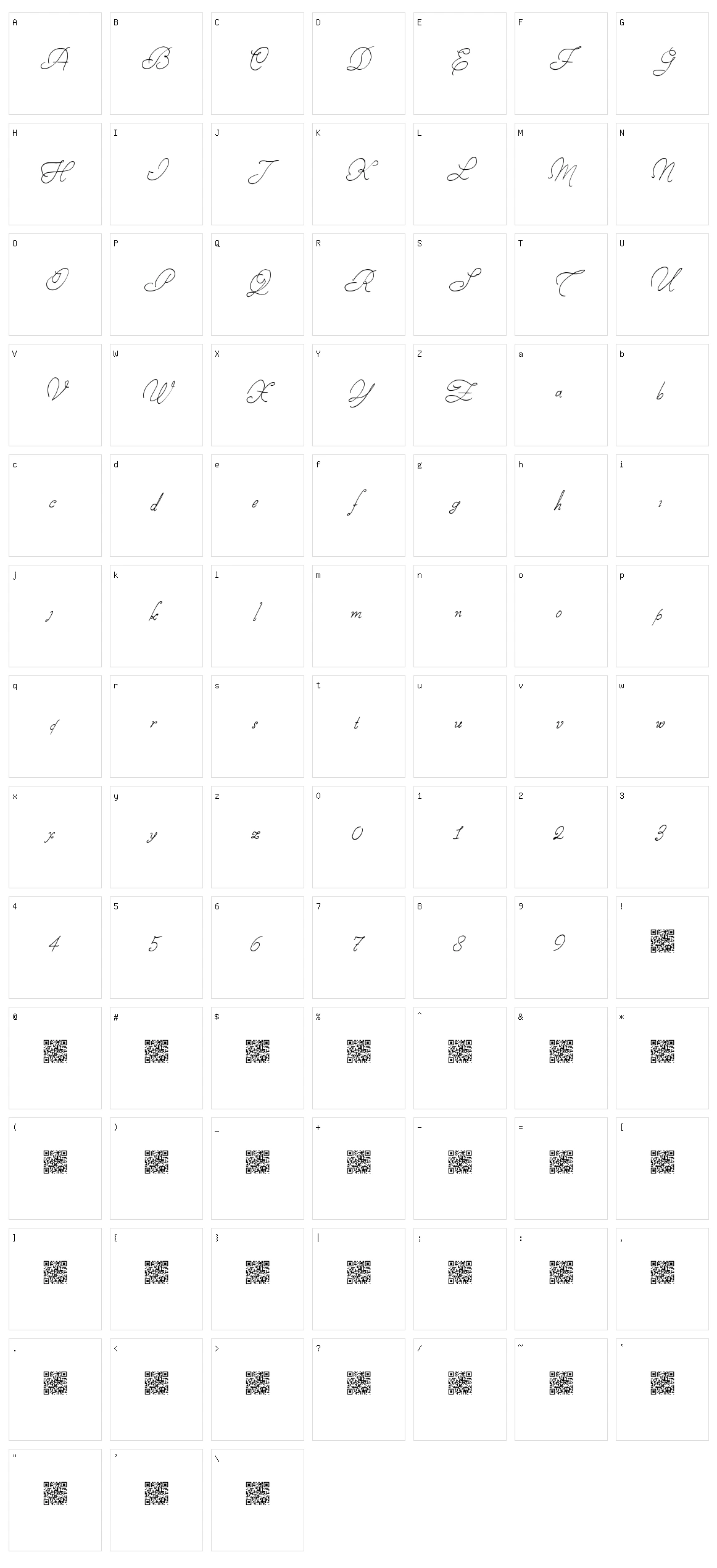
The free font Stamped Envelopes is carefully designed by Xerographer Fonts, showcasing a thoughtful balance of creativity and usability and falls under the Script font style. When you download the ZIP file, it contains only 16.74 KB of font files, making it lightweight and quick to download. Please review the license details below to understand permitted usage and distribution rights. If license information is not available, we recommend using this font for personal projects only or contacting the author directly for commercial usage permissions.